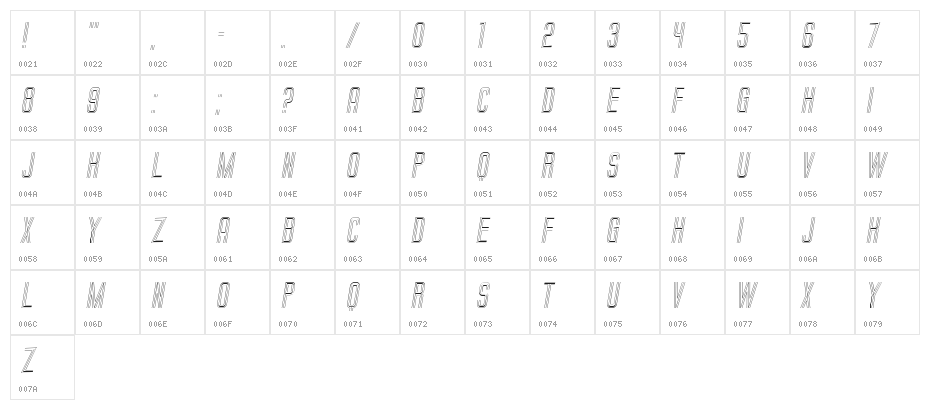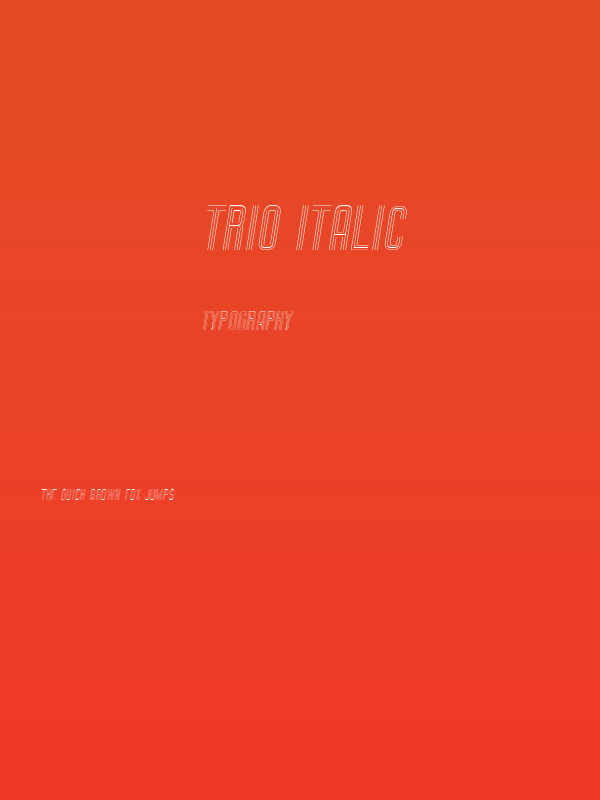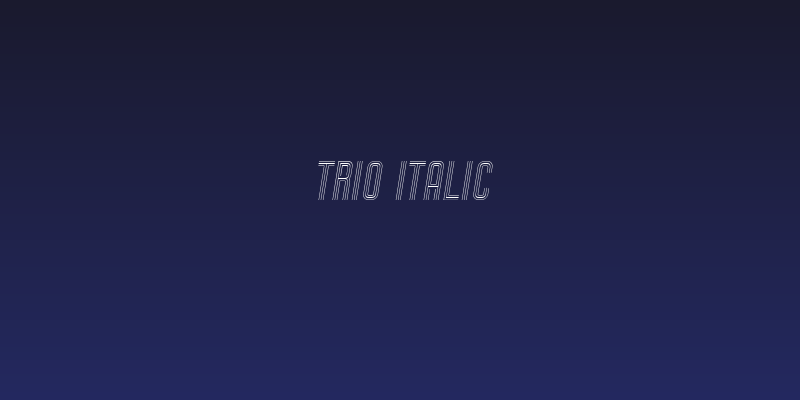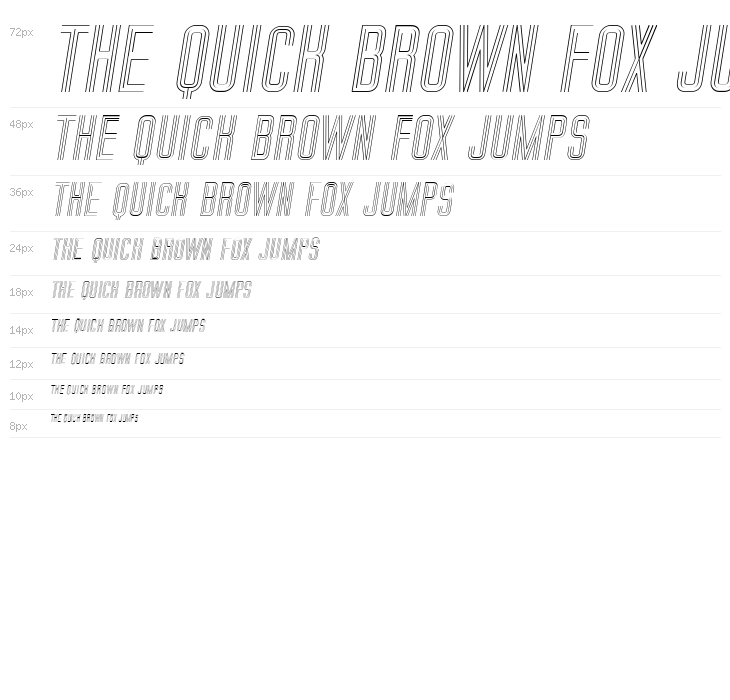
Trio Italic Font
Trio Italic Description
This font features a unique, modern design with a distinct italic slant. Each character is composed of multiple parallel lines, creating a sense of depth and movement. The uppercase and lowercase letters maintain a consistent style, with clean, geometric shapes that are both bold and elegant. The numerals and special characters follow the same design principles, ensuring a cohesive look across all text elements. This font's innovative use of line work makes it stand out, offering a fresh take on traditional italic styles.
| Proposed Projects | Ideal for branding, posters, and modern editorial design where a striking, contemporary look is desired. |